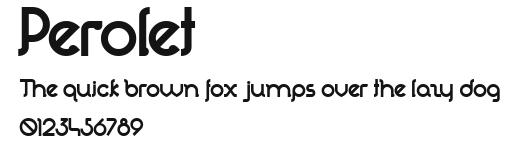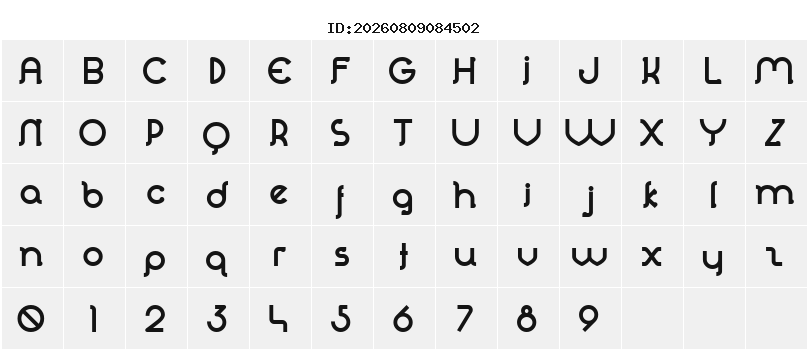
Perolet Preview
• Font Name: Perolet
• Full Font Name: Perolet Bold
About Perolet.ttf
Perolet.ttf is a modern, elegant sans-serif font designed for ultimate readability and visual harmony. Perfect for branding, headlines, web design, and print materials.